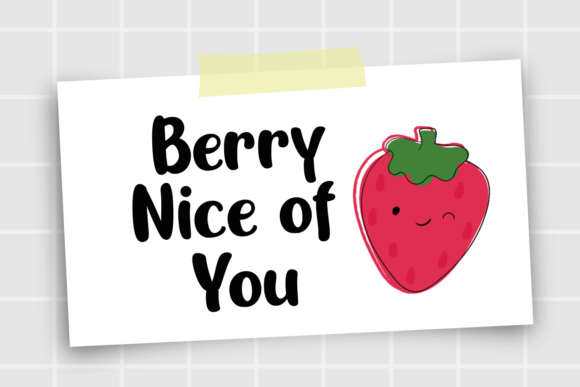
The Berry Nice of You Font: A Designer’s New Best Friend
- ✨ Fun and Friendly Vibe: Berry Nice of You has a unique, handwritten feel that’s perfect for making your designs stand out.
- ✅ Versatility: Whether you’re working on crafts, stickers, digital designs, t-shirt prints, presentations, or greeting cards, this font adapts seamlessly.
- 🎉 Easy to Read: Despite its playful nature, the font remains clear and readable, even at smaller sizes.
While Berry Nice of You is an excellent font, there are a few things to keep in mind:
- 🤔 Limited Formality: Given its playful nature, this font might not be the best choice for very formal or professional projects.
- ⚠️ Overuse: As with any font, using Berry Nice of You excessively can make your design look cluttered. Balance is key.
- Explore the font’s OpenType features, such as stylistic alternates, to add more personality to your text.
The Story Behind Berry Nice of You
The creator of Berry Nice of You aimed to craft a font that feels both personal and approachable. Inspired by everyday handwritten notes and the joy of giving, this font embodies warmth and friendliness. Whether you’re a designer or a hobbyist, it’s easy to see why Berry Nice of You has become a beloved choice for various creative projects.
Q: Is Berry Nice of You suitable for professional projects?
A: While Berry Nice of You is incredibly versatile, its playful nature might not make it the best fit for very formal or professional projects. However, it can add a nice touch to creative and innovative professional designs.
Q: Does Berry Nice of You support OpenType features?
A: Yes, Berry Nice of You supports various OpenType features, including stylistic alternates and glyphs, which can enhance your design’s creativity and uniqueness.